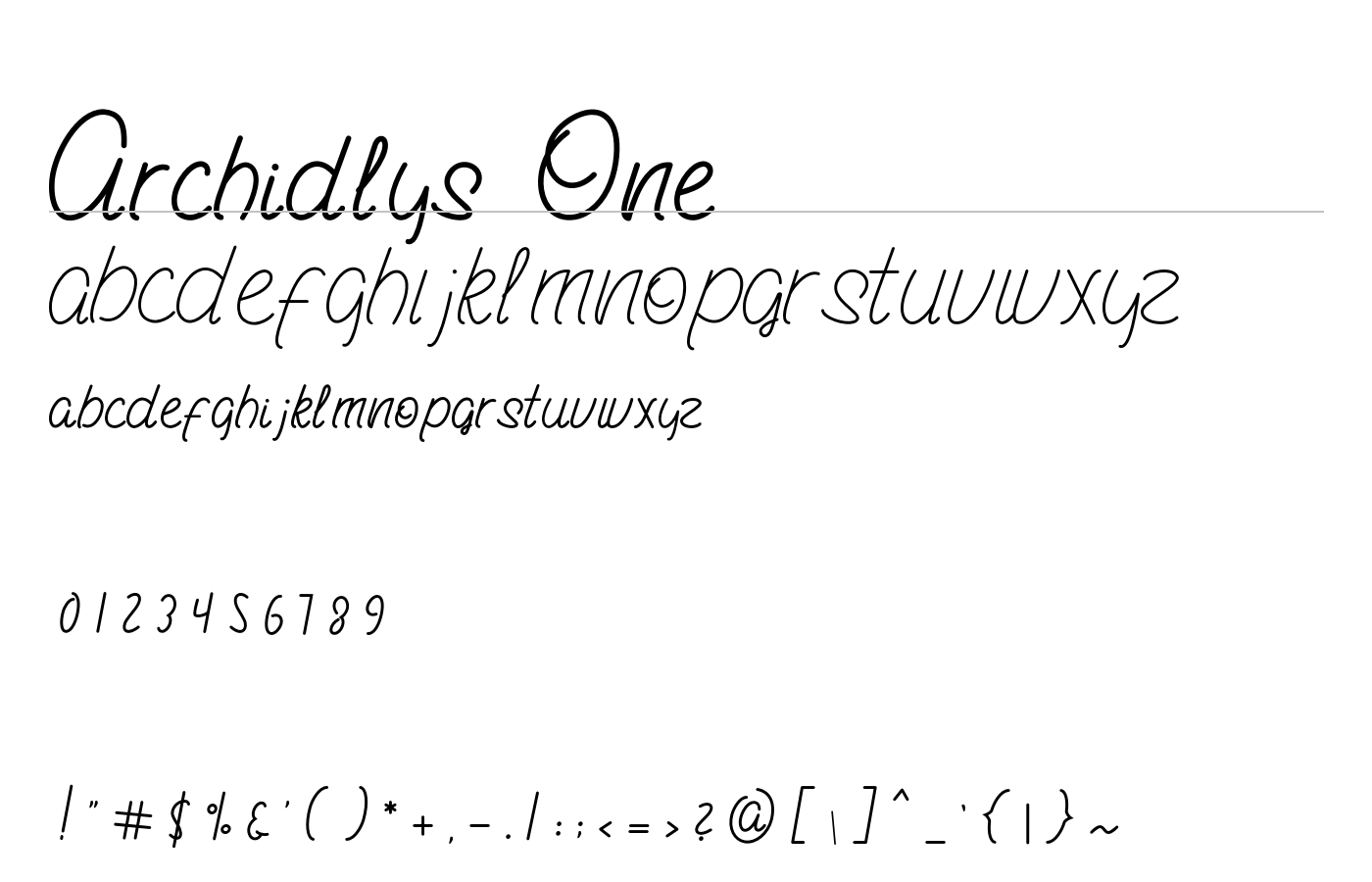
Archidlys One is a delicate, handwritten script font with a light weight and elegant, narrow letterforms. Its tall, slender characters feature subtle curves and a smooth, flowing style that gives a refined yet approachable feel. Ideal for creative projects, personal branding, and artistic headlines, this font adds a touch of sophistication and charm wherever it is used.
Archidlys One Font